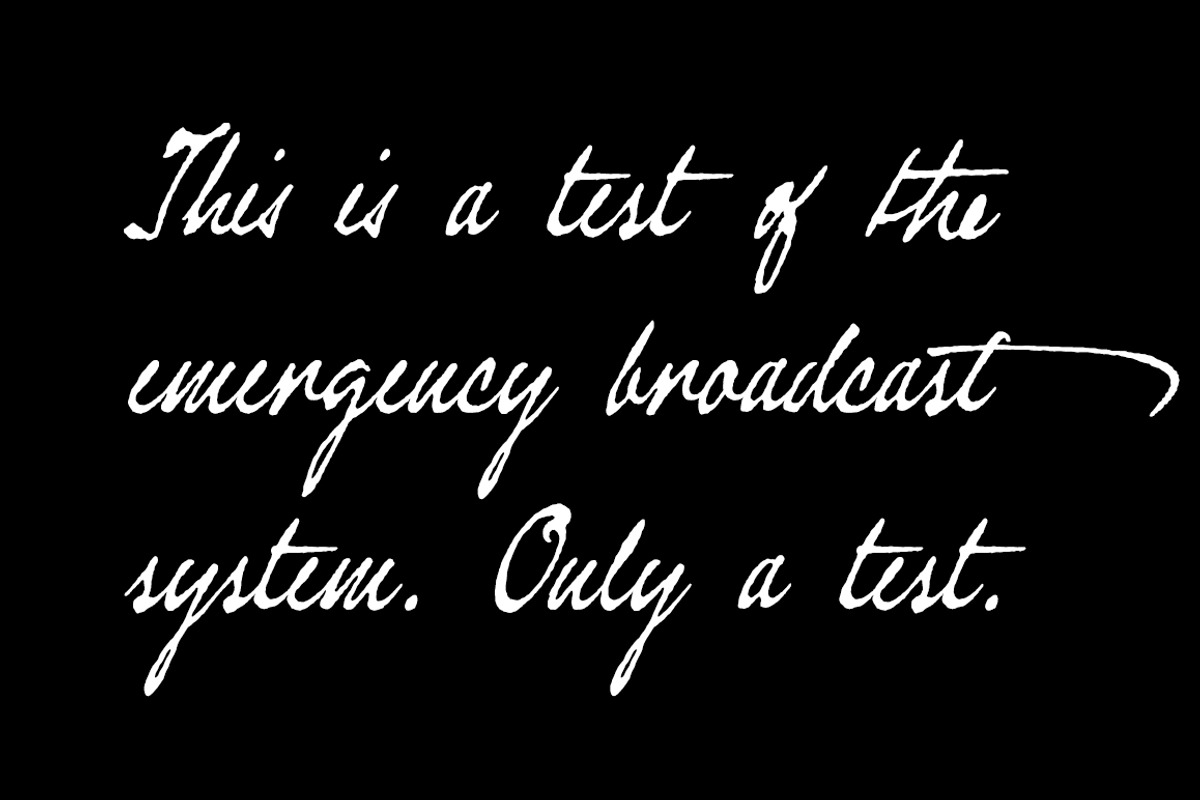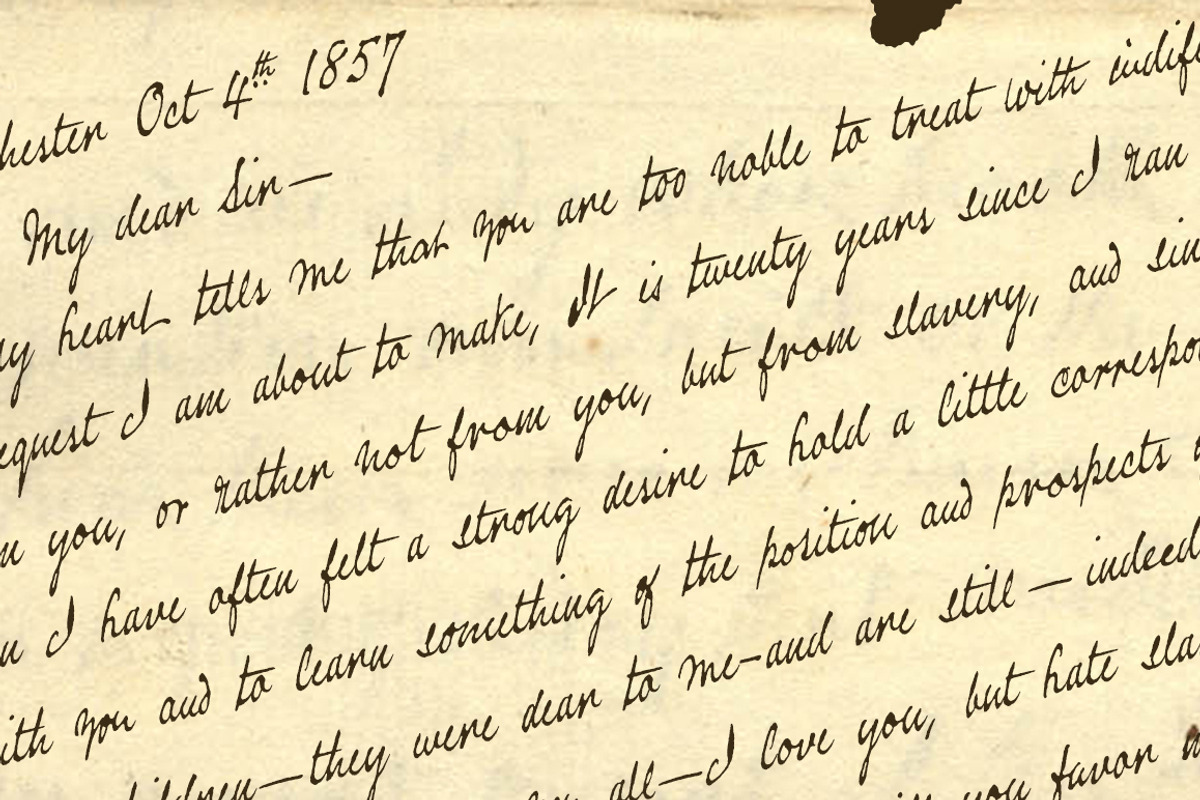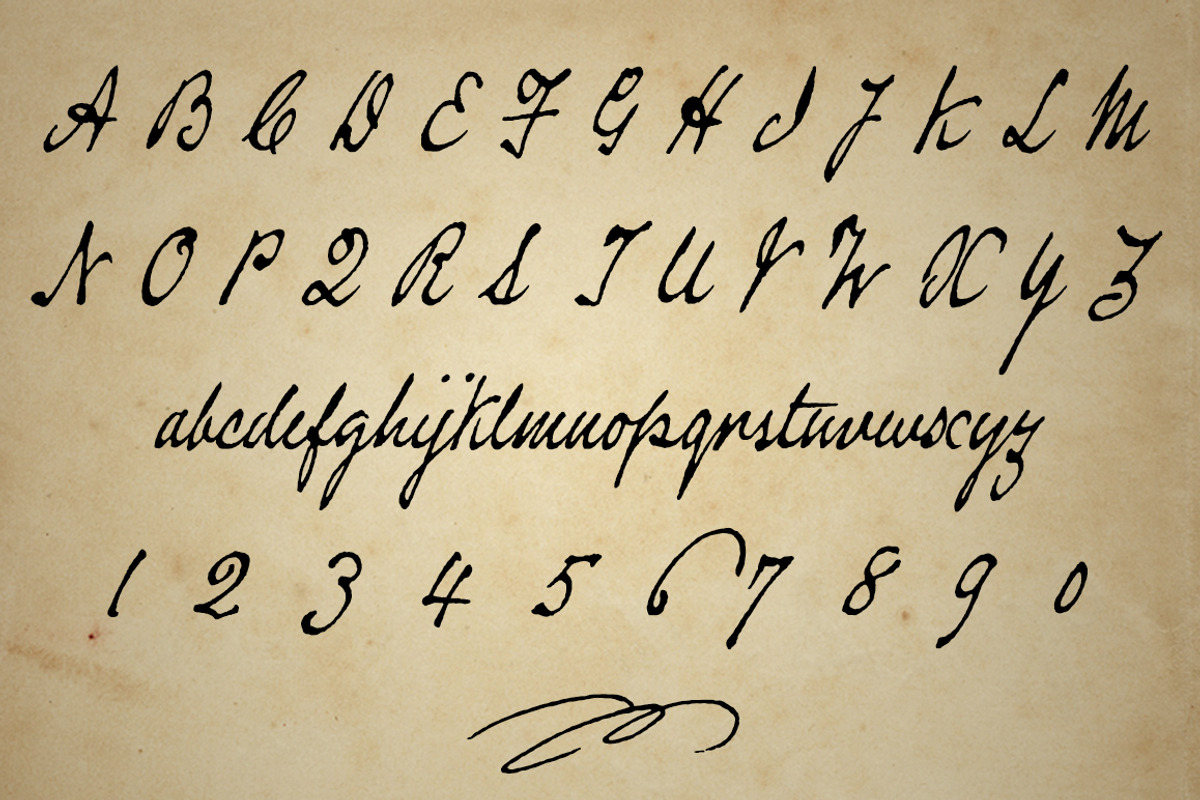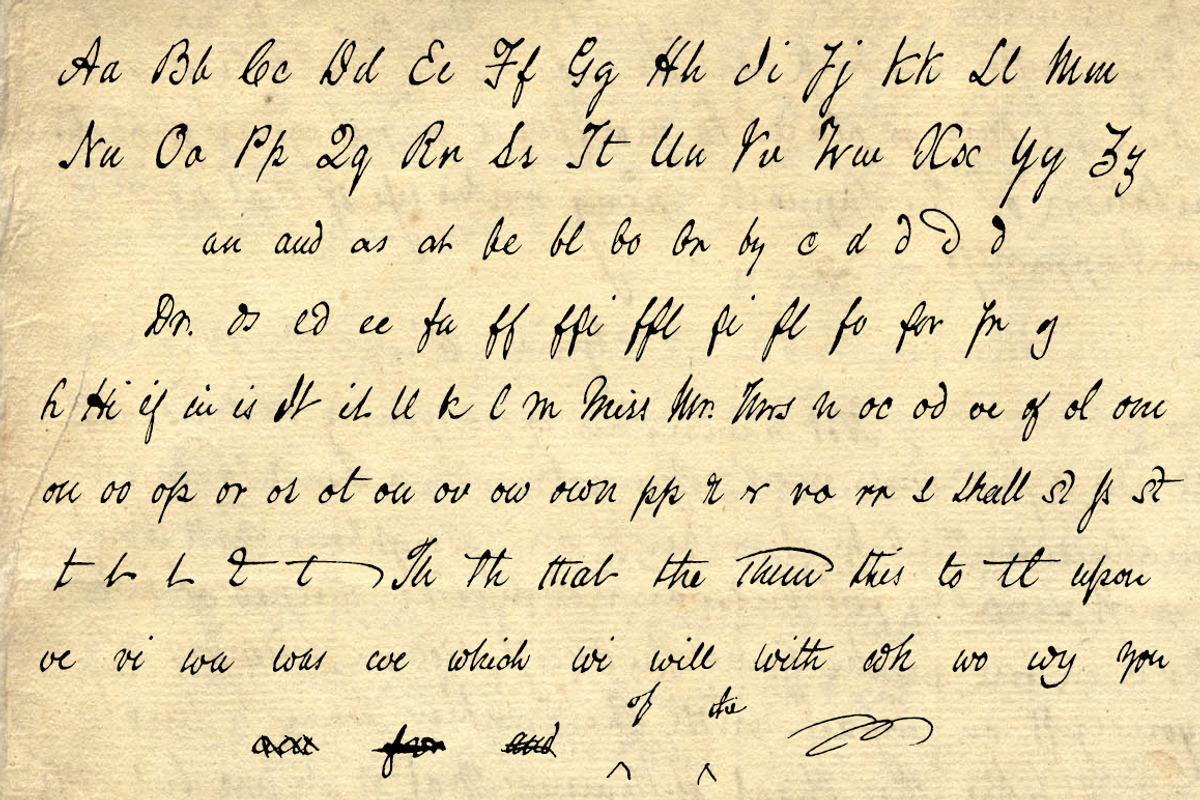
Douglass Pen, a vintage cursive font.
Douglass Pen, a vintage cursive font. by Three Islands Press is a font selected for branding, posters, packaging, typography.
- It comes with more than 800 glyphs, including scores of ligatures, lining and old-style figures, cross-outs, swashes, inkblots, and support
Douglass Pen, a vintage cursive font. by Three Islands Press fits naturally into Branding, posters, packaging, typography.